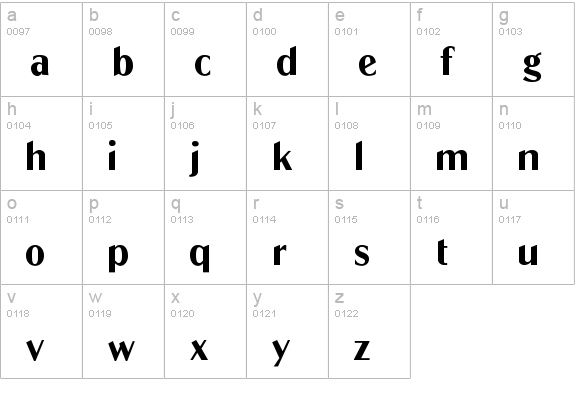
GlobeL Font Details
Introducing GlobeL font - a versatile and modern typeface that is sure to elevate your design projects to the next level. With its sleek and elegant design, GlobeL is perfect for a wide range of applications, from branding and logo design to web and print materials. One of the best things about GlobeL font is that it is completely free to download. You can easily access this beautiful typeface at FontsMarket.com, where you can find a wide selection of high-quality fonts for all your design needs. Don't miss out on the opportunity to enhance your projects with the stunning GlobeL font - download it today and see the difference it can make in your designs!